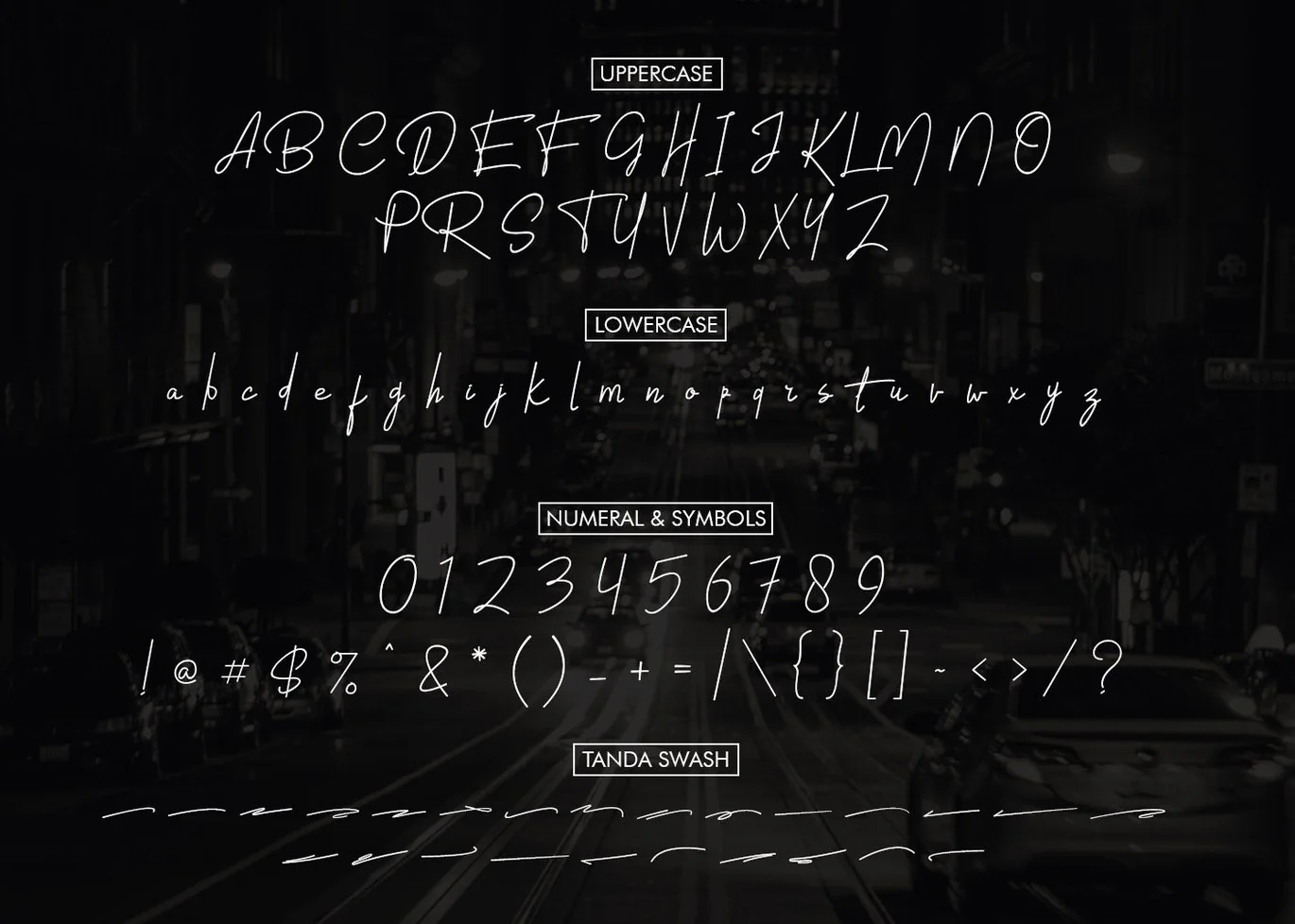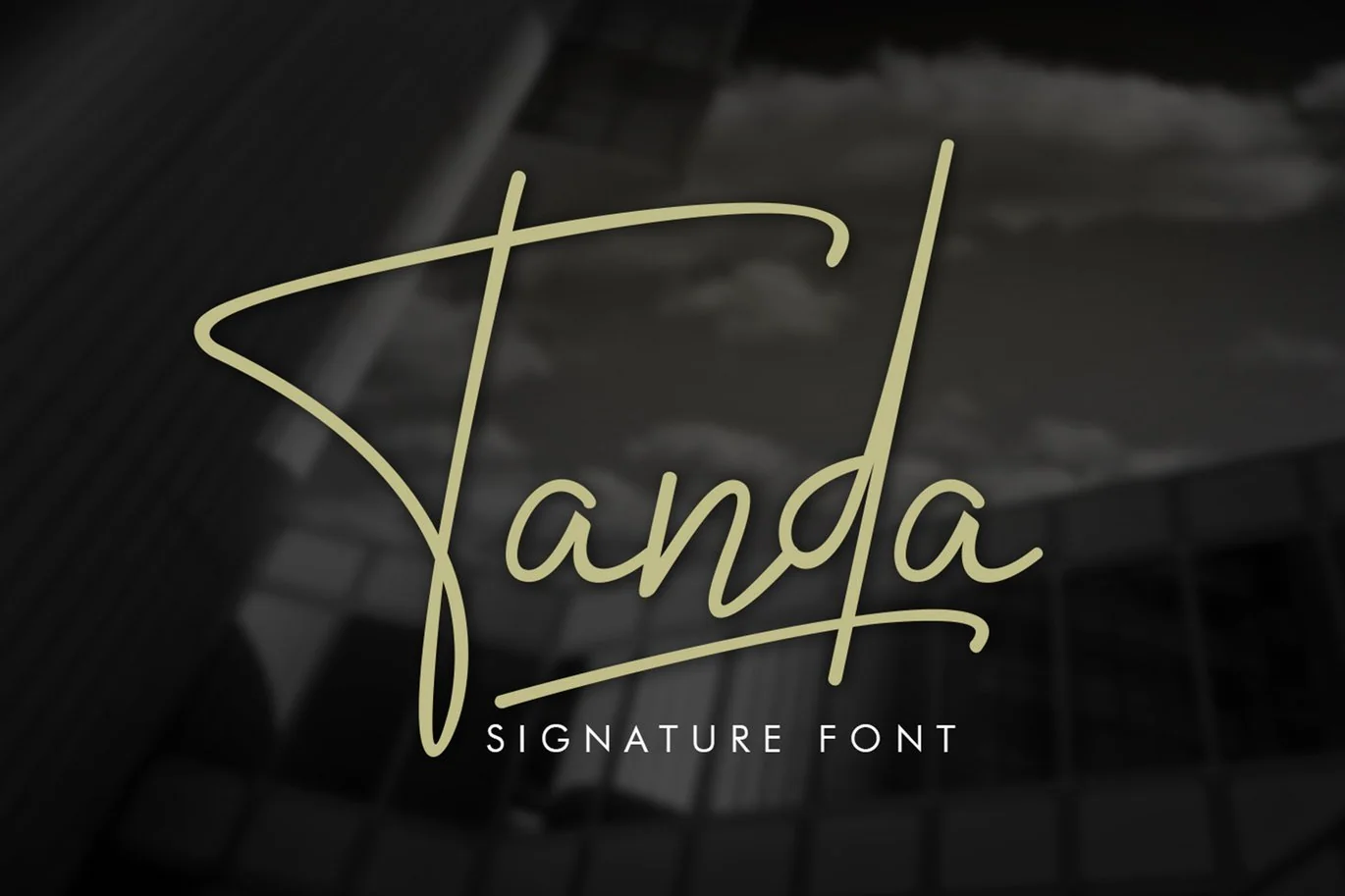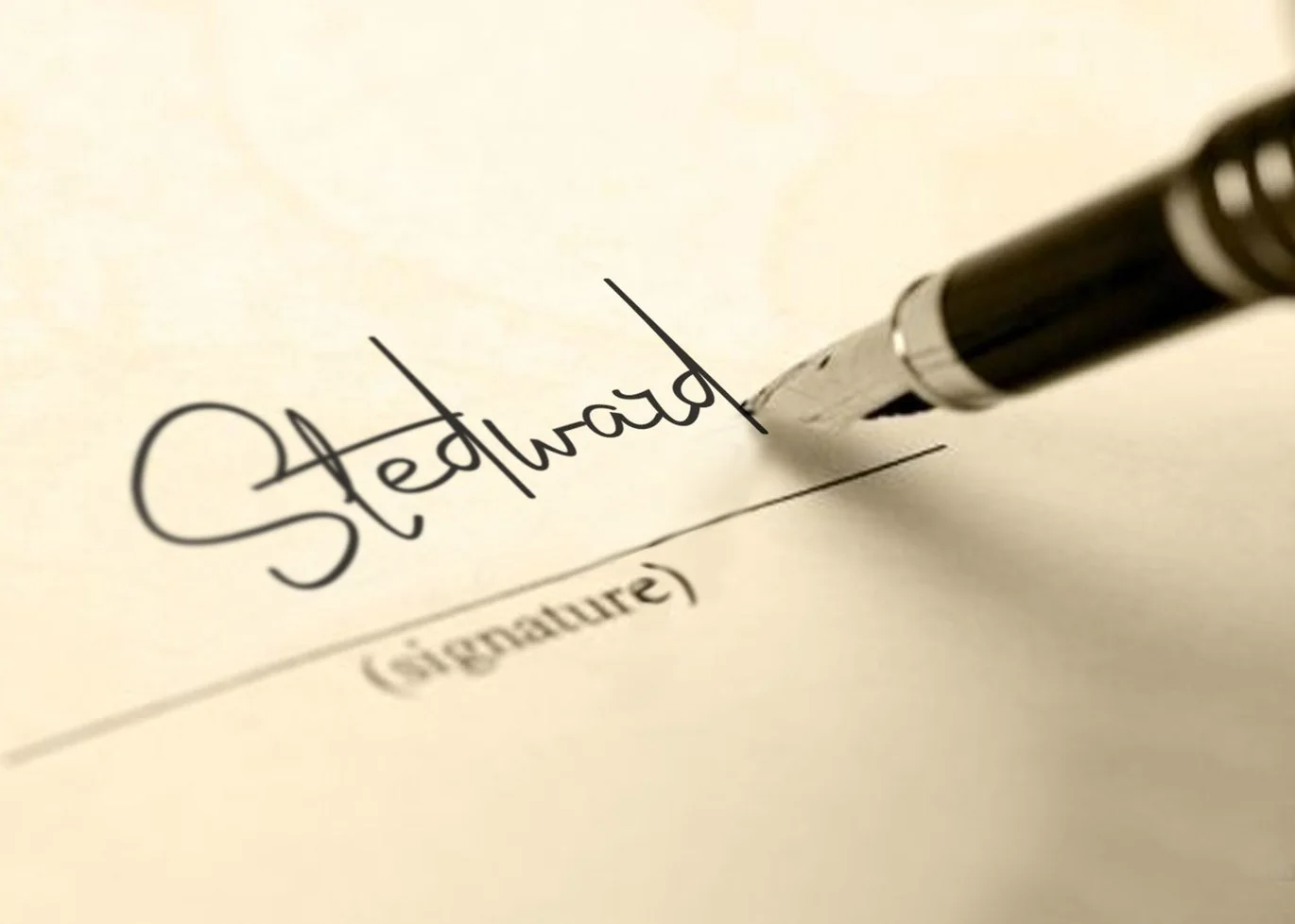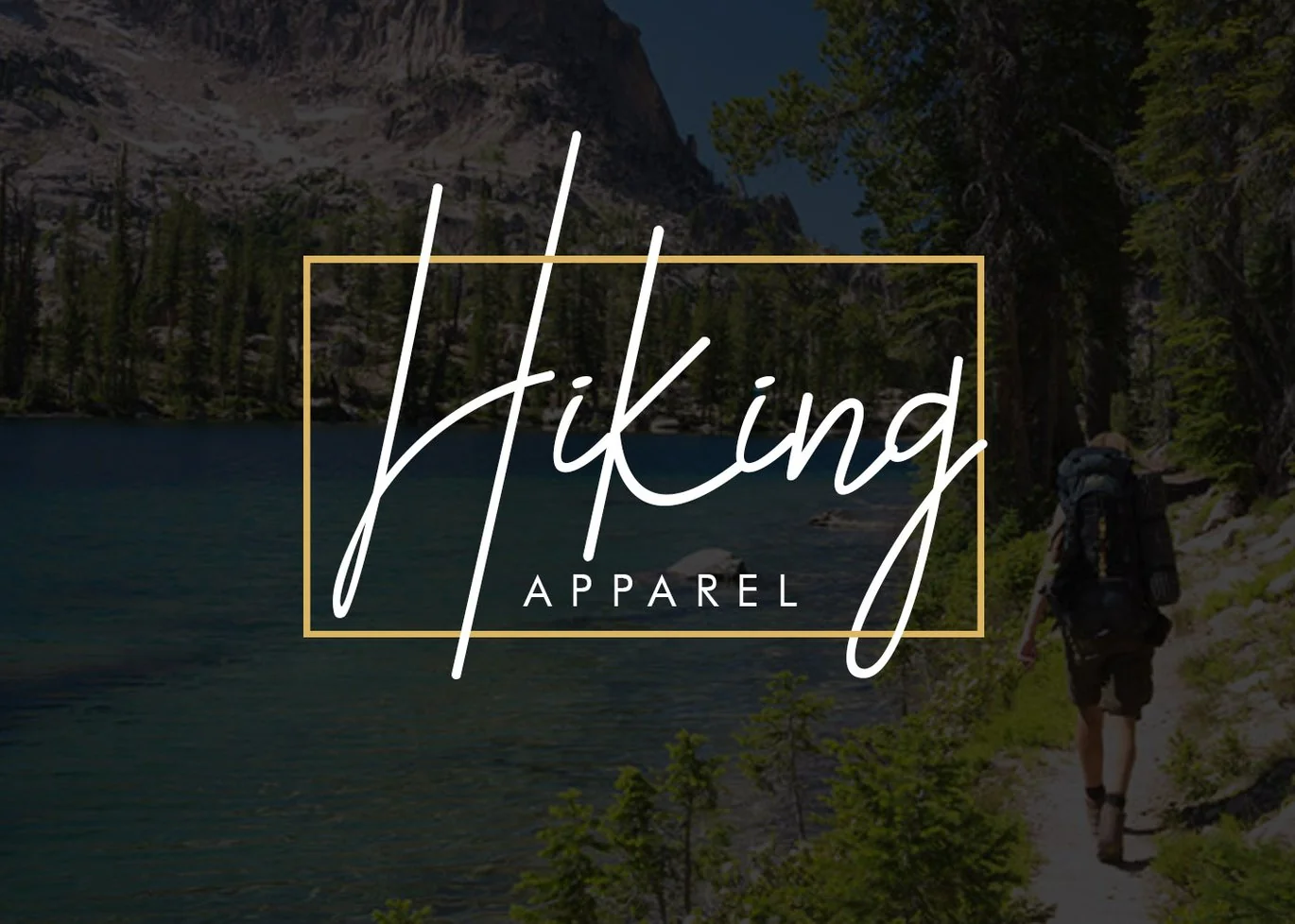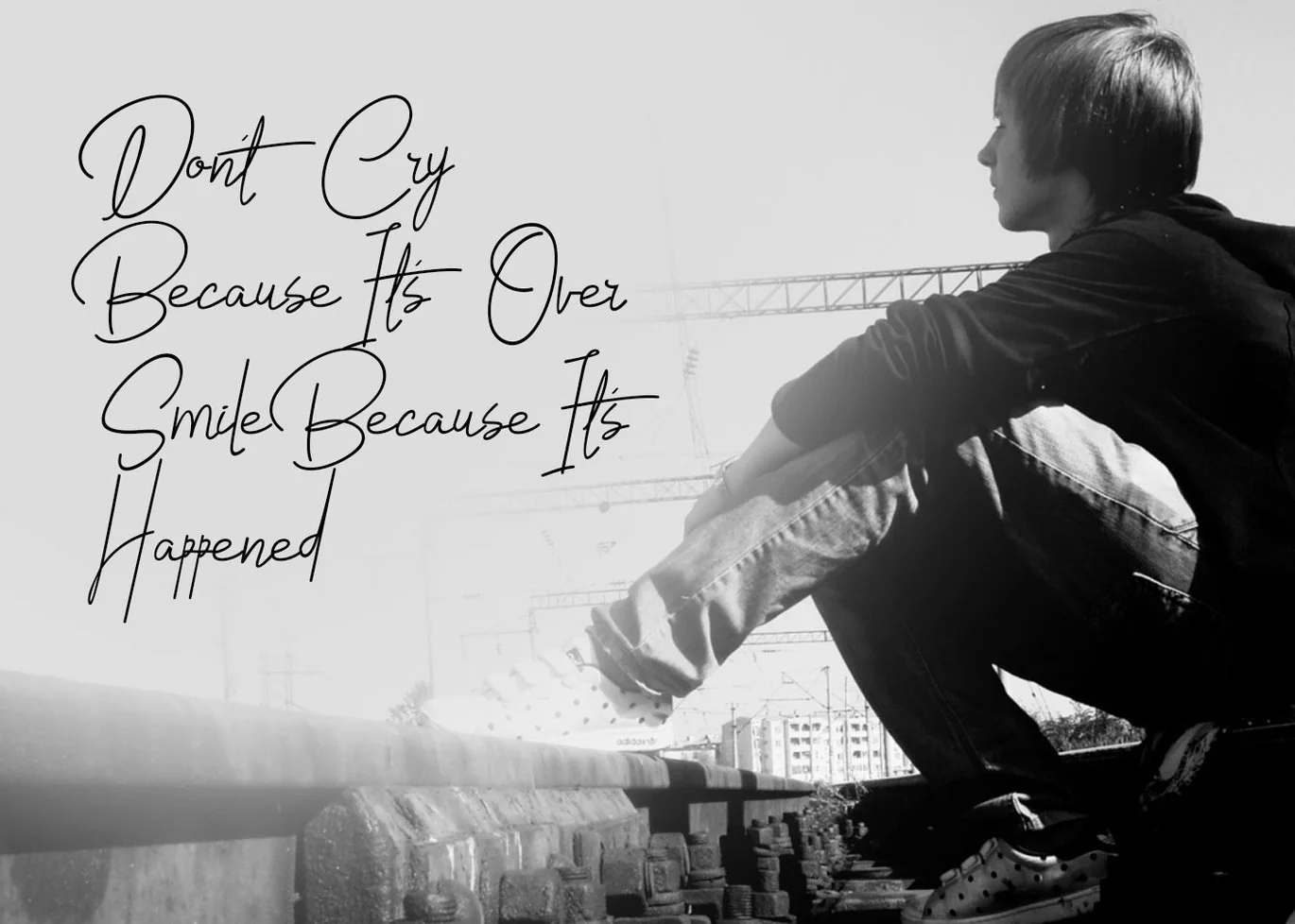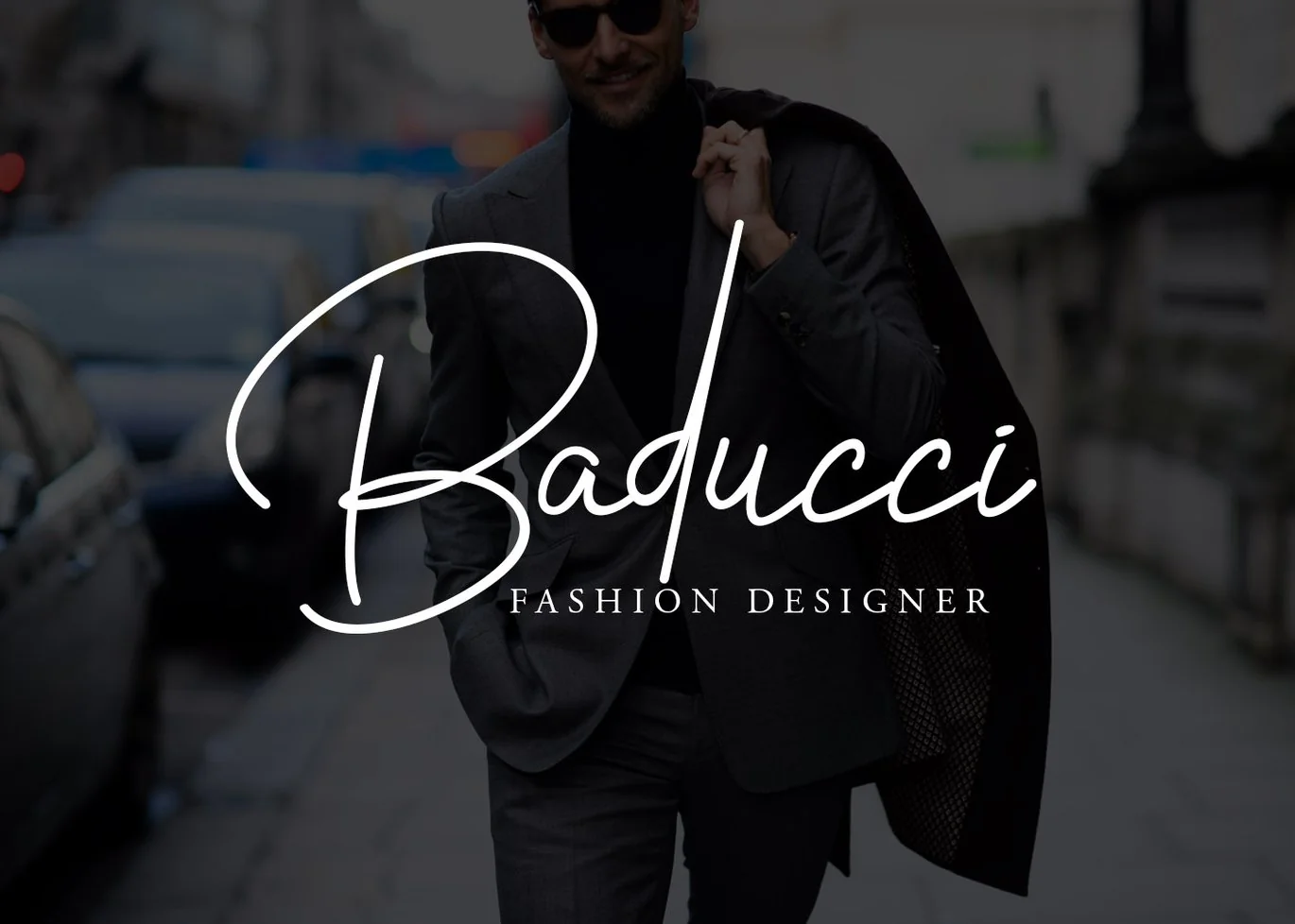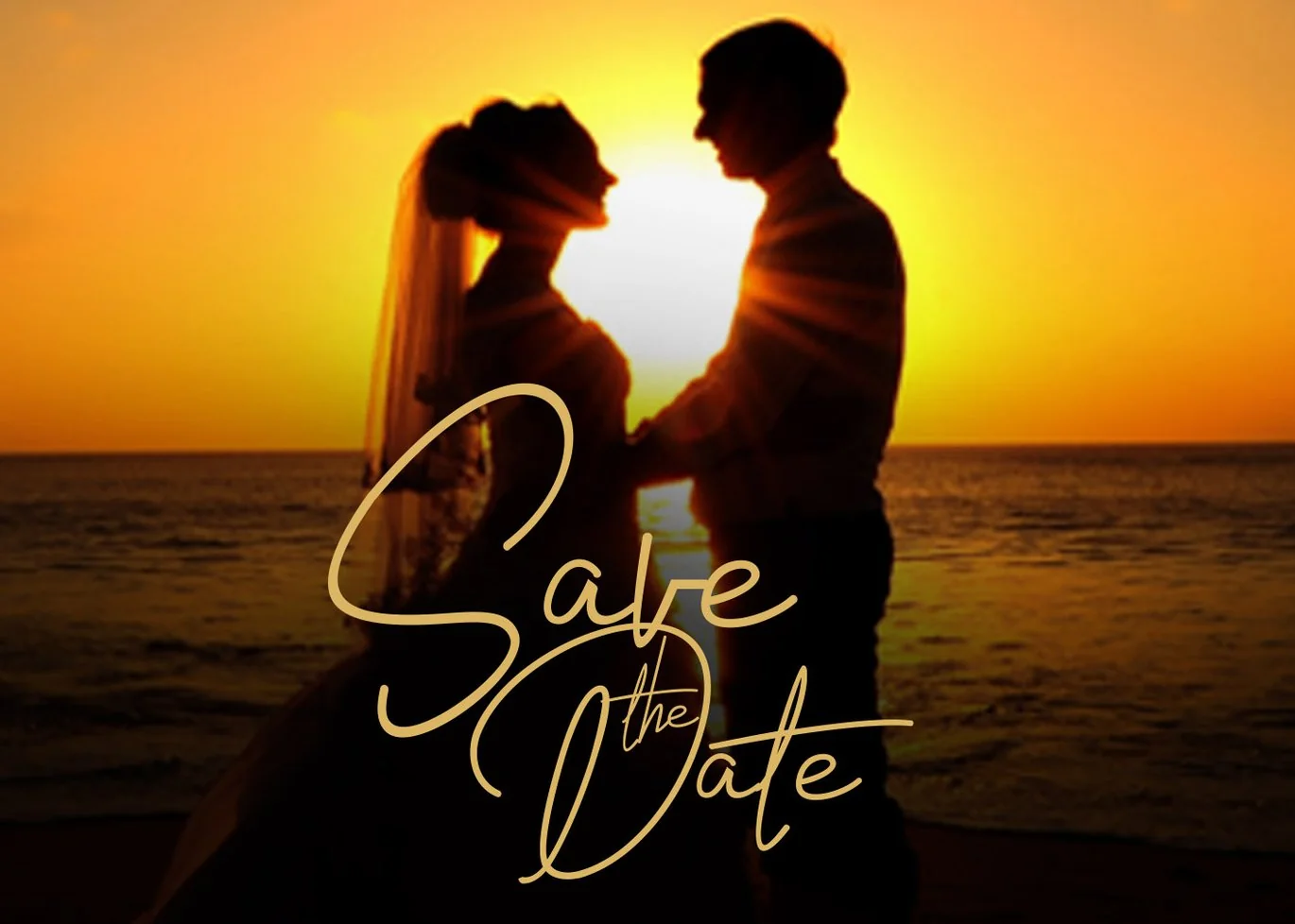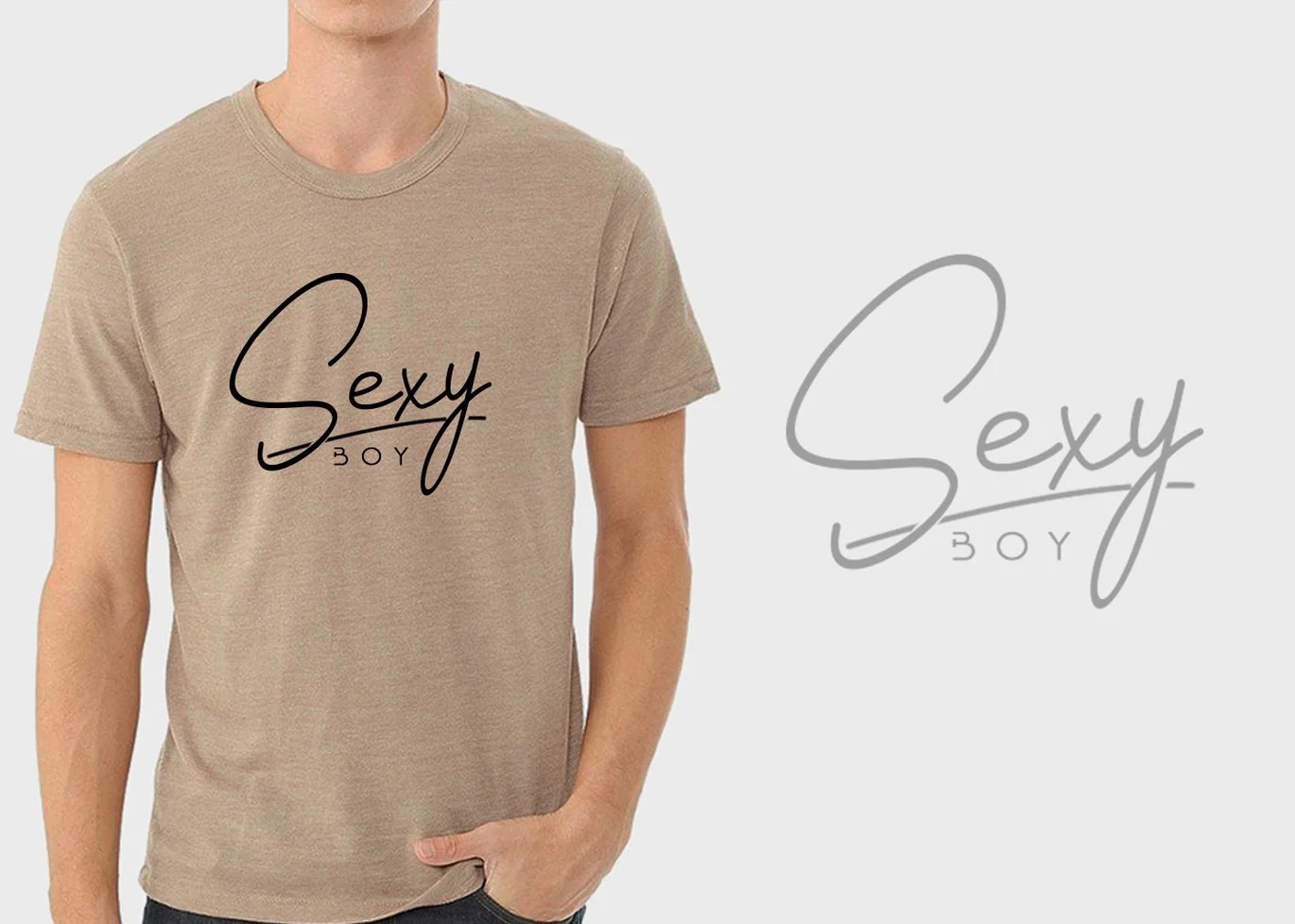
Tanda Signature Font
Introducing Tanda Signature Typeface – a font that is very fresh and unique style handmade. Tanda Signature Typeface is perfectly suited to logo, stationery, poster, apparel, branding, wedding invitation, card, tagline, layout design, and much more !!